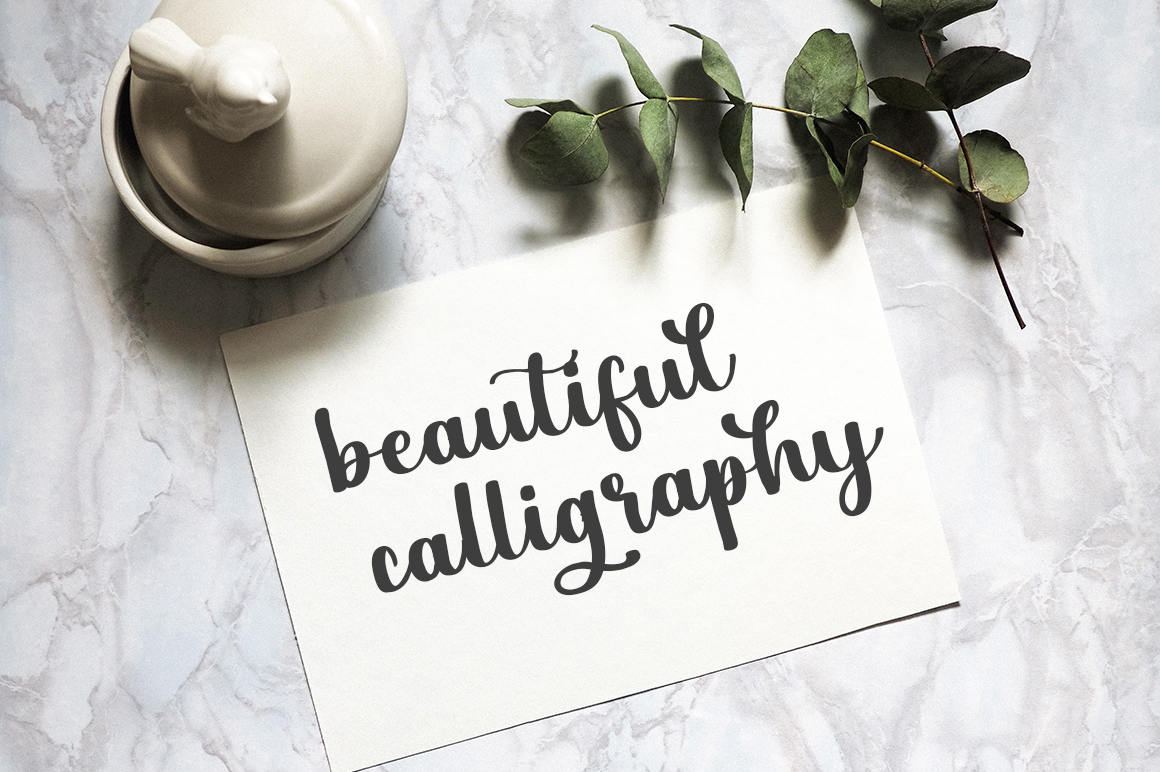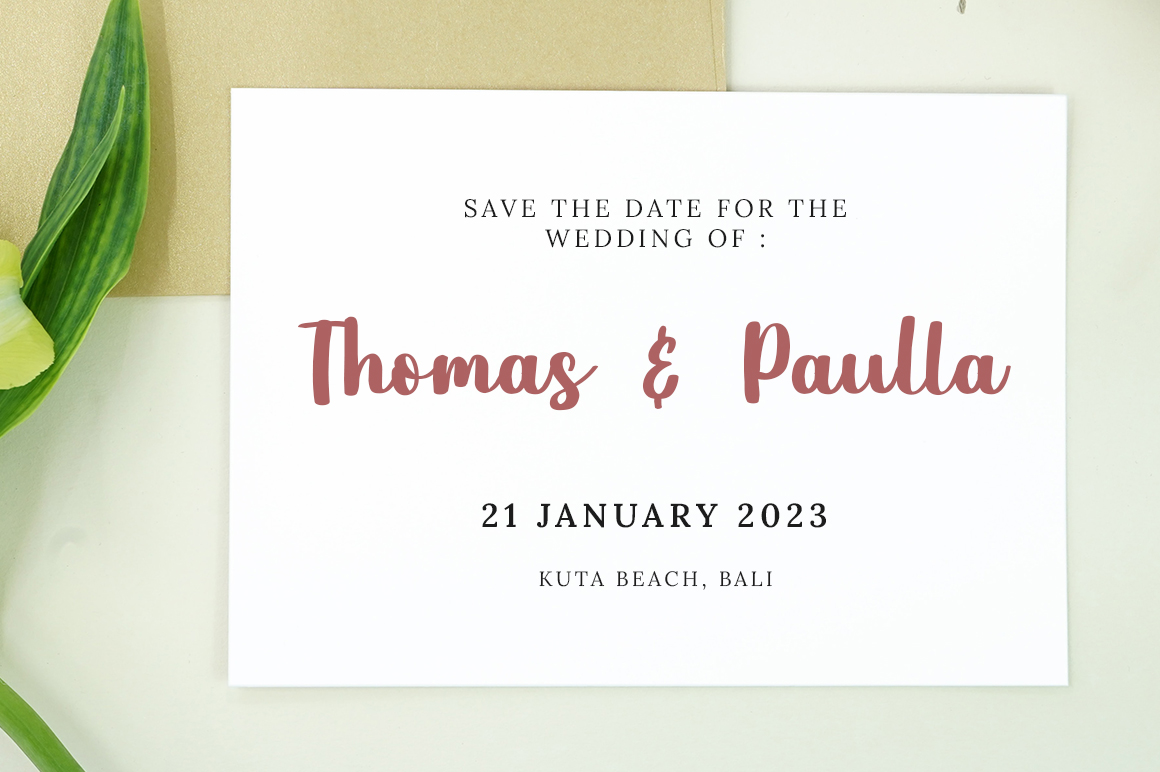
Sunlight Script Font
This is a sweet font and modern calligraphy with a beautiful feel. Its distinct and well-rounded letters make this font a masterpiece.
This font is perfect for use on branding, fashion, weddings, social media, logotypes, magazines, quotes, lettering, watermarks, and invitations.